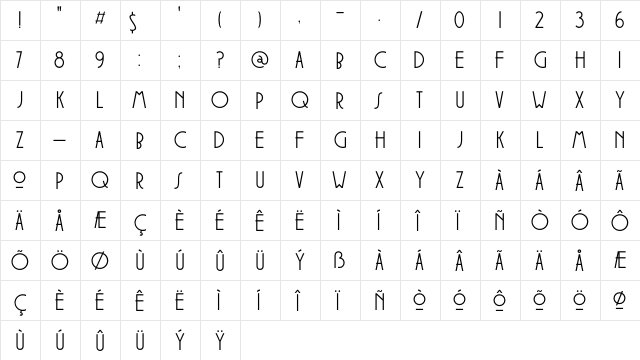
DK Soerabaja Regular
| Foundry | David Kerkhoff |
| Designer | David Kerkhoff |
Design Context for DK Soerabaja Typeface
DK Soerabaja is a composed and adaptable typeface that performs quietly and consistently across a wide range of design contexts.